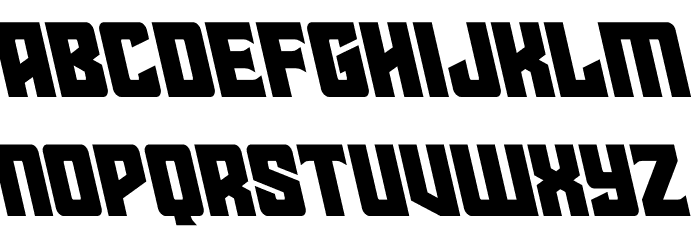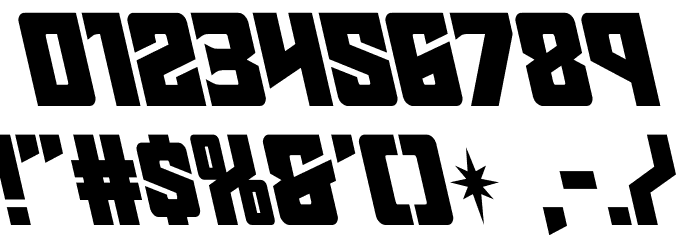
Star Guard Leftalic Font
This font features a bold and angular design with a futuristic flair. The characters are heavily stylized with sharp edges and a slight slant, giving them a dynamic and aggressive appearance. The uppercase letters are consistent in height, while the lowercase letters maintain a similar style, ensuring readability. The numbers are equally bold and angular, matching the overall aesthetic of the font. Special characters are designed with the same attention to detail, integrating seamlessly with the rest of the set. This font is ideal for projects that require a strong, impactful presence.
Bold, angular font with a futuristic and dynamic style.
- Proposed Projects: Ideal for sci-fi themed posters, video game titles, and branding for tech companies.
- Overall Style: Futuristic, Dynamic